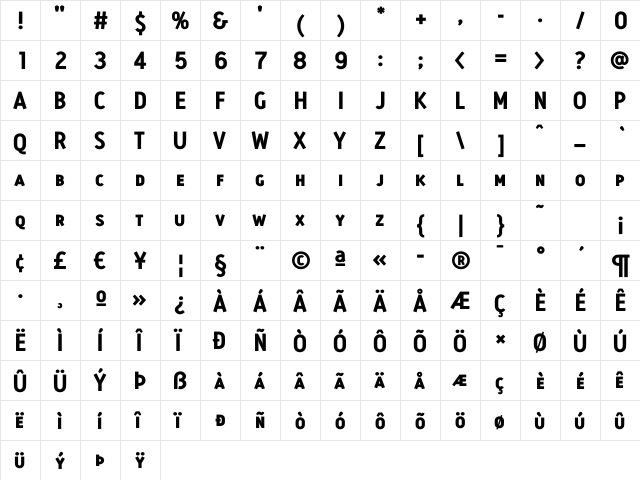
AntitledBold Caps Regular Font Preview
AntitledBold Caps Regular
AntitledBold Caps Regular Font Details
Design Context for AntitledBold Caps Typeface
AntitledBold Caps is a composed and adaptable typeface that performs quietly and consistently across a wide range of design contexts. Its bold stroke weight gives it real presence on the page.
Pro Tip: Pair AntitledBold Caps with a font of contrasting weight or personality to build a more expressive typographic hierarchy.